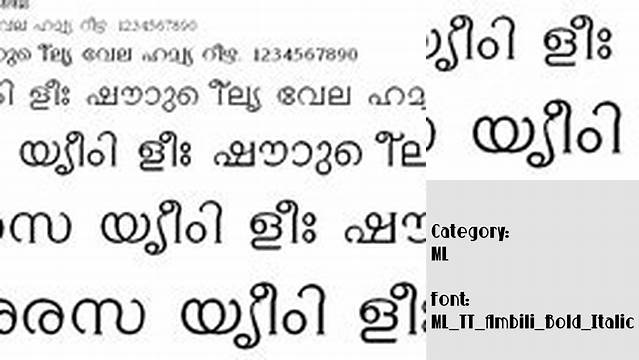
1. Exploring the Charm of ML TT Ambili Font
So, what's the deal with the ML TT Ambili font, anyway? Well, it's a font designed with a unique aesthetic, often described as modern and eye-catching. The distinctive letterforms and overall design make it perfect for various creative projects. Whether you're a graphic designer, a content creator, or just someone who loves to personalize their documents, this font can add a touch of flair. The font's versatility is one of its greatest strengths. You can use it for headings, logos, posters, social media graphics, or even in your personal projects. Its readability ensures your message gets across without sacrificing style. This flexibility makes the ML TT Ambili font a valuable asset for anyone looking to enhance their visual communication. Its unique appearance allows it to stand out in a sea of generic fonts, capturing the audience's attention. The design details, such as the curves, angles, and overall balance, contribute to the font's visual appeal. Because of the font's adaptability, designers and creatives are able to create something that's both visually appealing and easy to read. The ML TT Ambili font can truly transform any project into a work of art, as its special design adds a touch of elegance and originality. This font can enhance your creative projects, whether you are designing for a business or just for fun. The font is often chosen because of its special and eye-catching qualities. It stands out from other typefaces. It ensures your message is clear while also being visually interesting. The ML TT Ambili font is a great choice for those who want their text to have a memorable and stylish look.